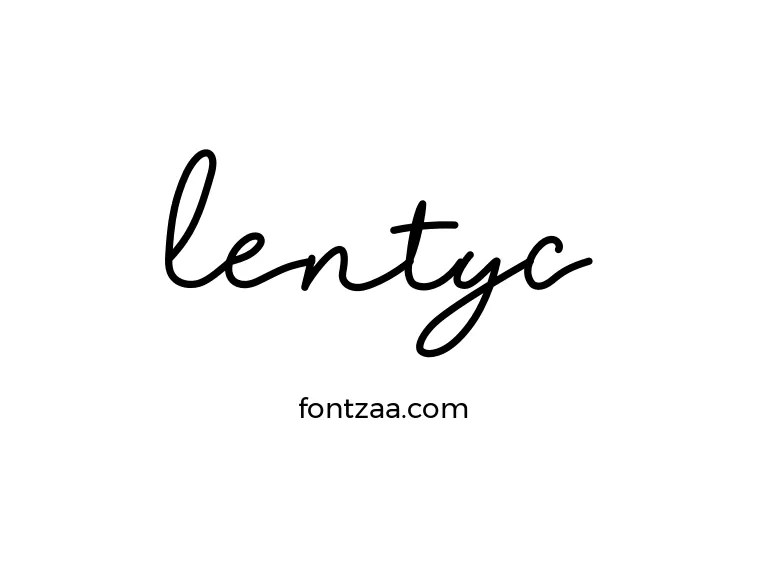
Lentyc Font offers expressive lettering for designers looking for a elegant visual direction. For projects that need typography with a stronger identity, Lentyc Font offers a elegant direction suited to creative display work. The typeface can change considerably depending on tracking, scale, alignment, background and surrounding imagery. The font can work as the primary visual element in a minimal layout or as part of a more detailed composition. Using generous space around the lettering can help the details of the typeface remain visible instead of competing with other elements. Creative uses may range from invitations, wedding stationery, signatures, quotes and elegant branding, with different results depending on scale and layout. A clean serif or sans serif companion can handle smaller text while this font remains focused on headlines and key messages. Previewing the final layout on both large and small screens helps identify spacing and readability problems early. According to the available font information, the typeface is associated with Unknown Publisher. The listed license is Free for personal use, although users should still review the original font package before commercial use. The most effective treatment will vary by project, so designers should compare several versions before finalizing the artwork.
Lentyc Font brings a elegant personality to typography and gives designers a flexible starting point for headlines, branding and promotional layouts. Using generous space around the lettering can help the details of the typeface remain visible instead of competing with other elements. Its letter shapes become especially noticeable at larger sizes, where spacing and proportions can be explored more clearly. The font can work as the primary visual element in a minimal layout or as part of a more detailed composition. Its display-focused appearance makes it worth testing in invitations, wedding stationery, signatures, quotes and elegant branding. Previewing the final layout on both large and small screens helps identify spacing and readability problems early. Keeping secondary typography simple often allows the distinctive qualities of the main font to remain more visible. Source metadata currently associates the font with Unknown Publisher. The available licensing label is Free for personal use, but redistribution and commercial permissions should always be confirmed from the original source. Testing the font with the actual project text can provide a much better impression than viewing isolated sample characters.
The visual character of Lentyc Font makes it an interesting choice for designers working on digital and print projects. Different color combinations can make the same font feel subtle, energetic, premium or highly decorative. The typeface can change considerably depending on tracking, scale, alignment, background and surrounding imagery. The font can work as the primary visual element in a minimal layout or as part of a more detailed composition. Designers may explore it across invitations, wedding stationery, signatures, quotes and elegant branding, depending on the tone and requirements of the project. Designers should evaluate the typeface inside the real project because a standalone preview cannot show every possible visual combination. Print and digital layouts may require different sizing and spacing, so testing the actual output dimensions is recommended. The available source information lists Unknown Publisher as the designer or publisher. The available licensing label is Free for personal use, but redistribution and commercial permissions should always be confirmed from the original source. Its final appearance will depend heavily on the surrounding colors, imagery, spacing and supporting typography.
Lentyc Font Family
Designers can use the Lentyc Font Family in several ways by varying scale, alignment, background treatment and supporting typography. Lentyc Font brings a elegant personality to typography and gives designers a flexible starting point for font-family exploration. Different color combinations can make the same font feel subtle, energetic, premium or highly decorative. The font can work as the primary visual element in a minimal layout or as part of a more detailed composition. Testing several arrangements before choosing the final version can reveal which characteristics of the typeface work best. Possible applications include invitations, wedding stationery, signatures, quotes and elegant branding. Print and digital layouts may require different sizing and spacing, so testing the actual output dimensions is recommended. Designers should evaluate the typeface inside the real project because a standalone preview cannot show every possible visual combination. According to the available font information, the typeface is associated with Unknown Publisher. The available licensing label is Free for personal use, but redistribution and commercial permissions should always be confirmed from the original source. Testing the font with the actual project text can provide a much better impression than viewing isolated sample characters.
How to Pair Lentyc Font With Other Fonts
With its distinctive letterforms, Lentyc Font can introduce a elegant character into combining the display font with supporting typefaces. Its letter shapes become especially noticeable at larger sizes, where spacing and proportions can be explored more clearly. Using generous space around the lettering can help the details of the typeface remain visible instead of competing with other elements. The font can work as the primary visual element in a minimal layout or as part of a more detailed composition. Its display-focused appearance makes it worth testing in invitations, wedding stationery, signatures, quotes and elegant branding. Previewing the final layout on both large and small screens helps identify spacing and readability problems early. Print and digital layouts may require different sizing and spacing, so testing the actual output dimensions is recommended. The available source information lists Unknown Publisher as the designer or publisher. Current license information is shown as Free for personal use; checking the original documentation is recommended before client or commercial work. Testing the font with the actual project text can provide a much better impression than viewing isolated sample characters.
Where to Use Lentyc Font
The visual character of Lentyc Font makes it an interesting choice for designers working on practical ways designers can use the typeface. Testing several arrangements before choosing the final version can reveal which characteristics of the typeface work best. Its letter shapes become especially noticeable at larger sizes, where spacing and proportions can be explored more clearly. The font can work as the primary visual element in a minimal layout or as part of a more detailed composition. The font can be considered for projects such as invitations, wedding stationery, signatures, quotes and elegant branding. Previewing the final layout on both large and small screens helps identify spacing and readability problems early. Designers should evaluate the typeface inside the real project because a standalone preview cannot show every possible visual combination. The available source information lists Unknown Publisher as the designer or publisher. Current license information is shown as Free for personal use; checking the original documentation is recommended before client or commercial work. Its final appearance will depend heavily on the surrounding colors, imagery, spacing and supporting typography.
Social Media Ideas With Lentyc Font
For projects that need typography with a stronger identity, Lentyc Font offers a elegant direction suited to posters, campaigns, thumbnails and promotional content. Its letter shapes become especially noticeable at larger sizes, where spacing and proportions can be explored more clearly. Using generous space around the lettering can help the details of the typeface remain visible instead of competing with other elements. The font can work as the primary visual element in a minimal layout or as part of a more detailed composition. The font can be considered for projects such as invitations, wedding stationery, signatures, quotes and elegant branding. Keeping secondary typography simple often allows the distinctive qualities of the main font to remain more visible. For layouts containing longer information, pairing it with a simpler supporting typeface can improve readability and hierarchy. Source metadata currently associates the font with Unknown Publisher. The available licensing label is Free for personal use, but redistribution and commercial permissions should always be confirmed from the original source. A few quick layout variations can help determine where the font creates the strongest visual result.
Visual Features of Lentyc Font
For projects that need typography with a stronger identity, Lentyc Font offers a elegant direction suited to the visual characteristics and design personality of the typeface. The typeface can change considerably depending on tracking, scale, alignment, background and surrounding imagery. Different color combinations can make the same font feel subtle, energetic, premium or highly decorative. Testing several arrangements before choosing the final version can reveal which characteristics of the typeface work best. Its display-focused appearance makes it worth testing in invitations, wedding stationery, signatures, quotes and elegant branding. A clean serif or sans serif companion can handle smaller text while this font remains focused on headlines and key messages. Designers should evaluate the typeface inside the real project because a standalone preview cannot show every possible visual combination. Source metadata currently associates the font with Unknown Publisher. The available licensing label is Free for personal use, but redistribution and commercial permissions should always be confirmed from the original source. A few quick layout variations can help determine where the font creates the strongest visual result.